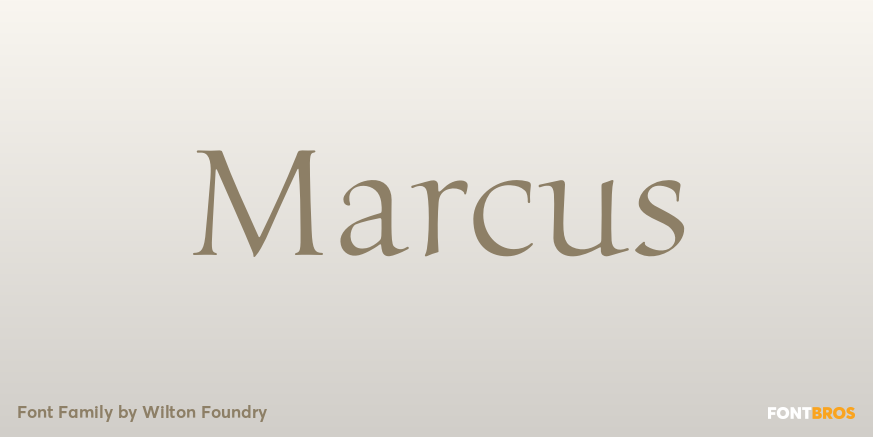
Marcus
About Marcus
Marcus, the font, was named after the Roman Emperor Marcus Ulpius Traianus (Trajan). The famous Trajan column was one of Marcus\’ many landmark monuments he commissioned. Inscriptions at the lower part of the Trajan column display what is considered to…